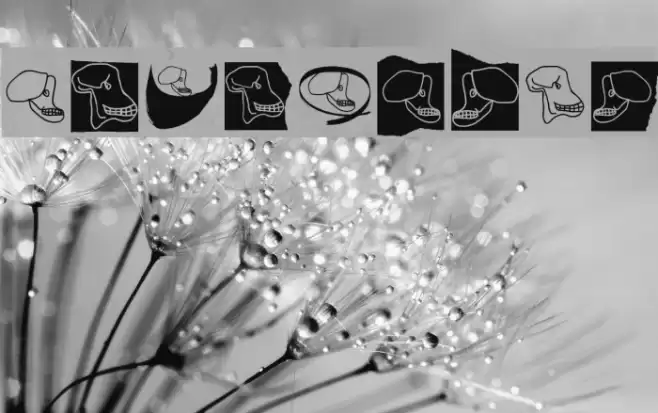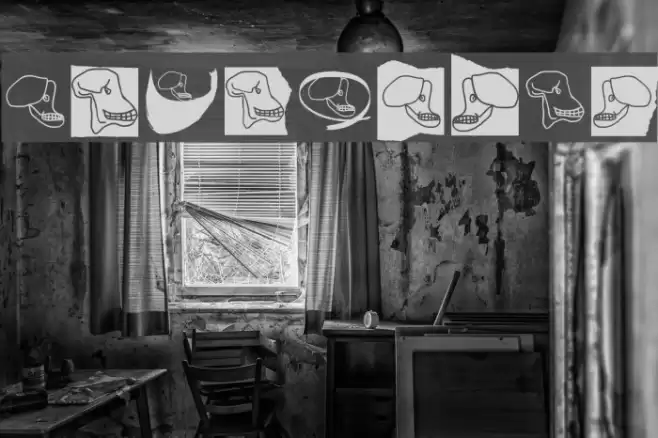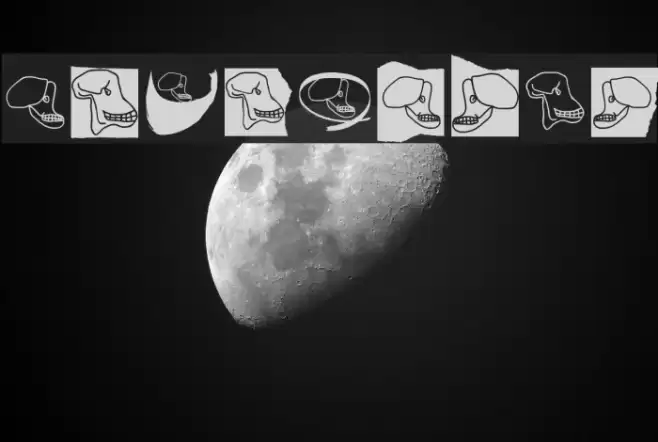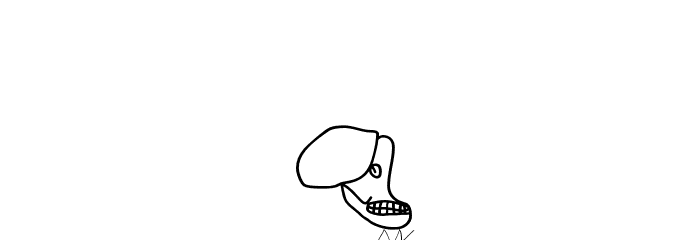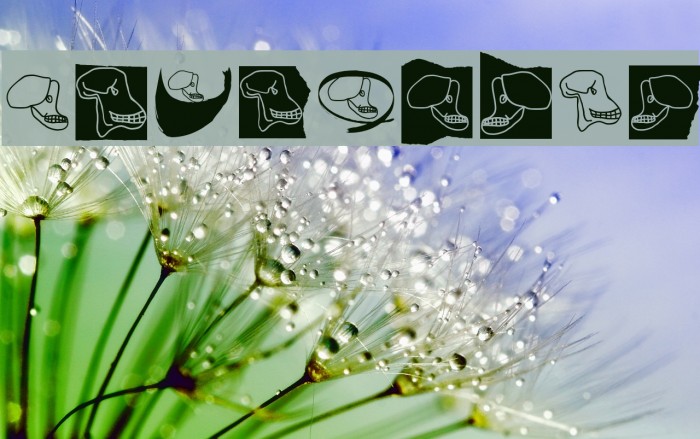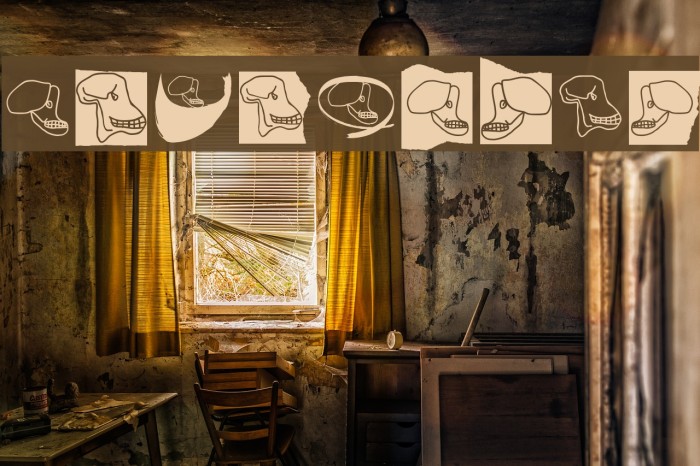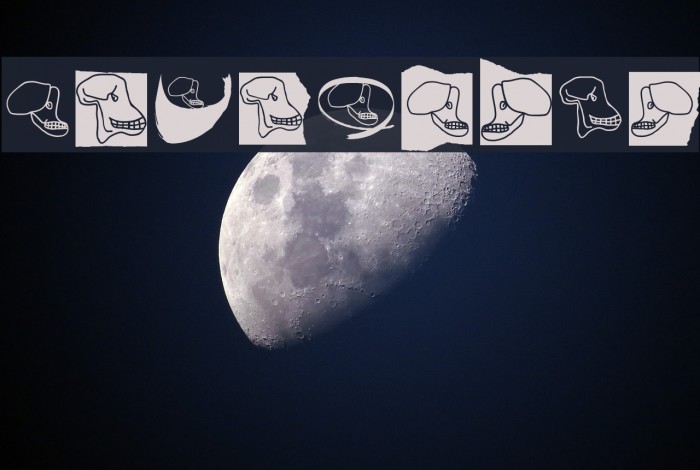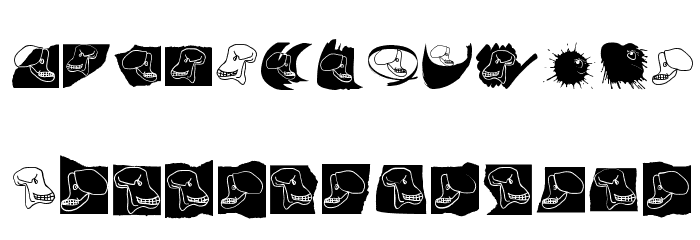
Apish Font
Apish Description
This font is a highly creative and whimsical design featuring cartoonish skulls with various expressions and accessories. Each character is represented by a unique skull illustration, making it a distinctive choice for projects that require a playful and edgy aesthetic. The font is characterized by its bold and graphic style, with high contrast between the black and white elements. The characters are enclosed in irregular shapes, adding to the quirky and unconventional feel. This font is not suitable for body text but excels in decorative and thematic applications.
A whimsical and bold font featuring cartoonish skull illustrations from Uncategorized fonts.
- Proposed Projects: Ideal for Halloween-themed designs, comic books, edgy branding, and creative posters.